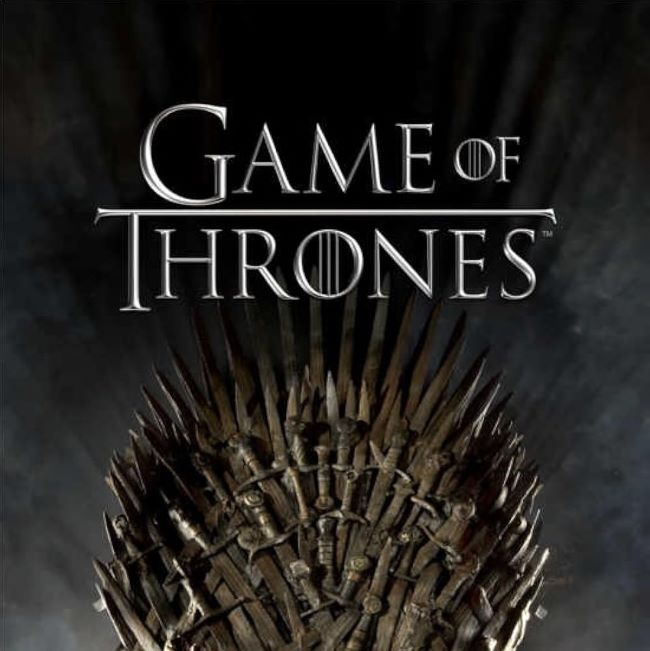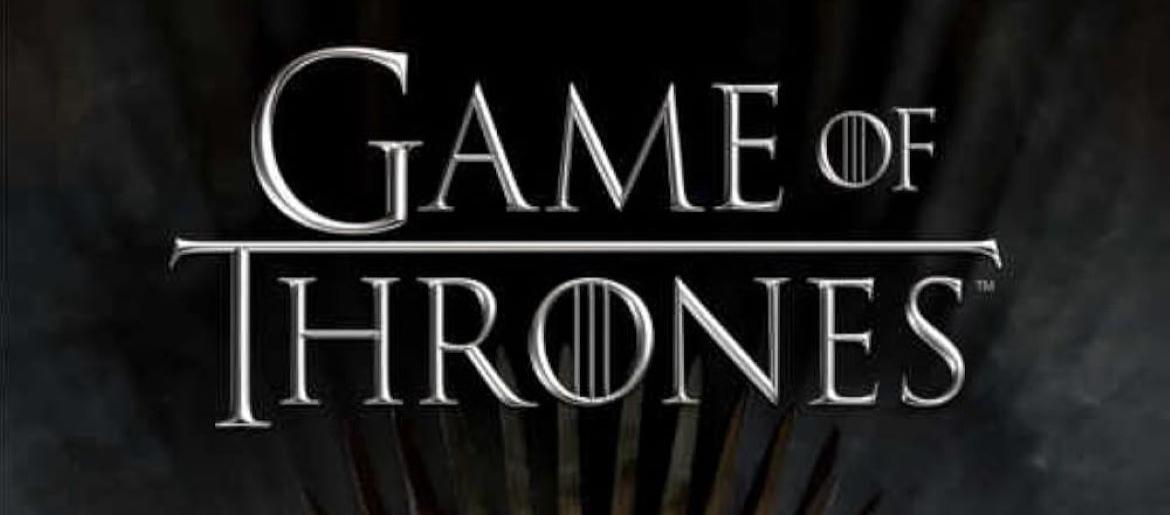
Game of Thrones Font
The Game of Thrones Font immediately evokes the weight and grandeur of an epic fantasy saga. Its medieval-inspired lettering pulls you straight into a world shaped by ancient houses, fierce rivalries, and power struggles that span continents. Bold yet elegant, the style reflects the show’s blend of nobility, brutality, and high-stakes drama, making it a favorite for anyone trying to recreate that iconic Westeros atmosphere.
The font’s strong, refined serifs make it ideal for fantasy posters, medieval-inspired branding, and dramatic title designs that need a sense of history and magnitude.
About Game of Thrones
Premiering in 2011, Game of Thrones adapted George R.R. Martin’s A Song of Ice and Fire into a sweeping television phenomenon. With its unforgettable characters, political intrigue, and groundbreaking storytelling, the series reshaped modern fantasy and left a lasting mark on pop culture worldwide.